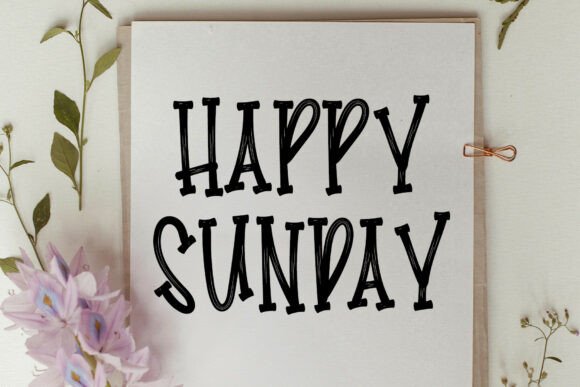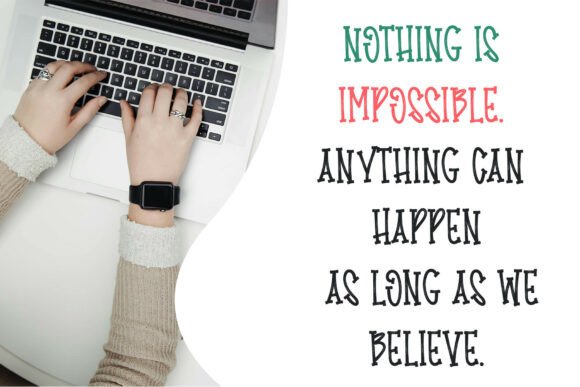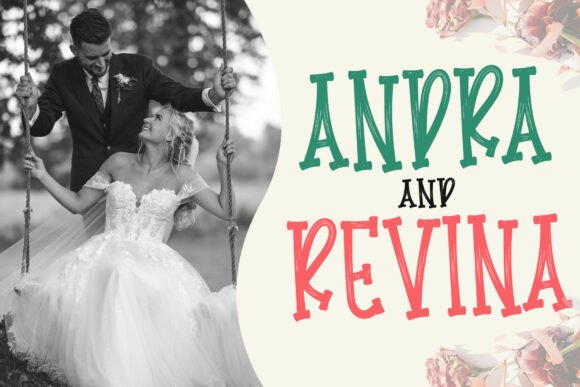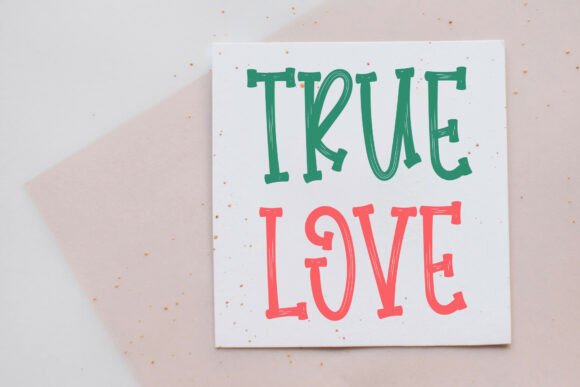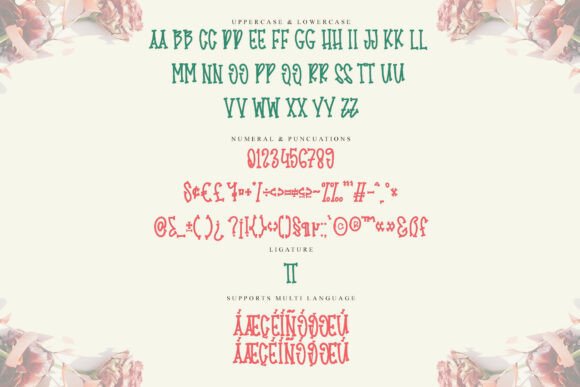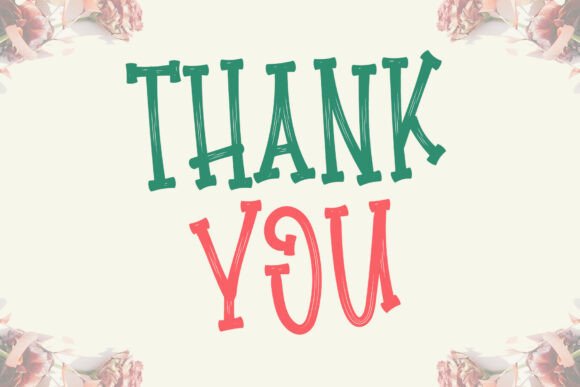
Introducing the Charity Alphabet Brush Font: A Bold and Playful Typeface for Your Creative Projects
Are you looking for a font that injects bold, playful energy and a genuine handmade texture into your designs? Look no further than the Charity Alphabet Brush Font! This striking display typeface is part of the Brush Font Collections and features a thick, hand-painted texture that gives every letter a vibrant, energetic, and slightly distressed appearance.
A Unique and Expressive Font for Creative Projects
The Charity Alphabet font uses strong, all-caps letterforms with slightly irregular edges, reminiscent of text painted onto banners or signs for a cause. This structure makes it wonderfully legible while maintaining a powerful, raw, and expressive feel. The font’s unique texture and bold letterforms make it perfect for a variety of creative projects, from charity event posters to children’s book headlines, playful branding, high-impact banners, and more.
Key Features of the Charity Alphabet Brush Font
- Hand-painted texture: The font features a thick, hand-painted texture that gives every letter a vibrant, energetic, and slightly distressed appearance.
- Strong, all-caps letterforms: The font uses strong, all-caps letterforms with slightly irregular edges, making it wonderfully legible and powerful.
- PUA-encoded: The font is PUA-encoded, allowing effortless access to all glyphs, swashes, and alternate characters.
- Versatile and enthusiastic asset: The Charity Alphabet typeface is a versatile and enthusiastic asset that communicates with clear, joyful, and unmistakable sincerity.
Ideal for a Variety of Creative Projects
The Charity Alphabet Brush Font is ideal for a variety of creative projects, including:
- Charity event posters: The font’s bold and playful energy makes it perfect for charity event posters that need to grab attention and communicate a sense of urgency.
- Children’s book headlines: The font’s playful and energetic feel makes it perfect for children’s book headlines that need to be fun and engaging.
- Playful branding: The font’s unique texture and bold letterforms make it perfect for playful branding that needs to stand out.
- High-impact banners: The font’s bold and expressive feel makes it perfect for high-impact banners that need to grab attention.
Why Choose the Charity Alphabet Brush Font?
There are many reasons why you should choose the Charity Alphabet Brush Font for your creative projects. Here are a few:
- Unique and expressive: The font’s unique texture and bold letterforms make it a standout from other fonts.
- Versatile: The font is versatile and can be used for a variety of creative projects.
- Easy to use: The font is PUA-encoded, making it easy to access all glyphs, swashes, and alternate characters.
- High-quality: The font is high-quality and can be used for professional designs.
In conclusion, the Charity Alphabet Brush Font is a bold and playful typeface that injects a genuine handmade texture into your designs. With its strong, all-caps letterforms and slightly irregular edges, this font is perfect for a variety of creative projects, from charity event posters to children’s book headlines, playful branding, high-impact banners, and more. Its unique texture and bold letterforms make it a versatile and enthusiastic asset that communicates with clear, joyful, and unmistakable sincerity. So why wait? Download the Charity Alphabet Brush Font today and start creating stunning designs that grab attention!